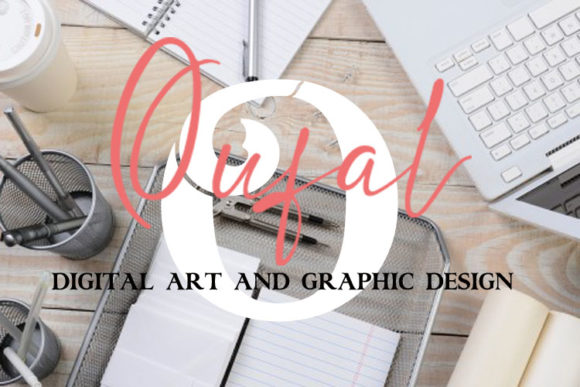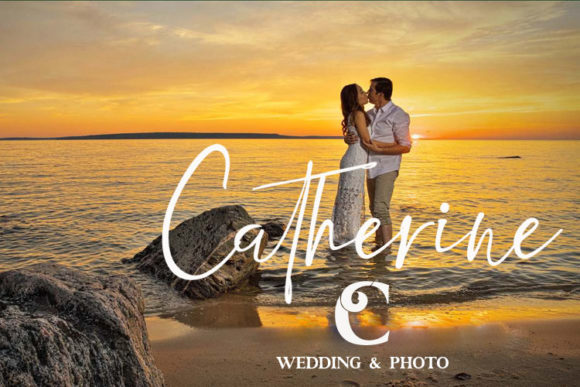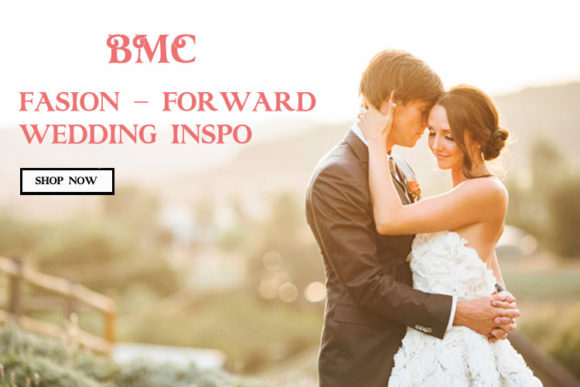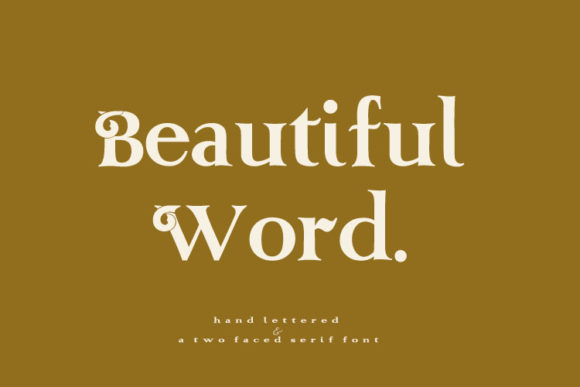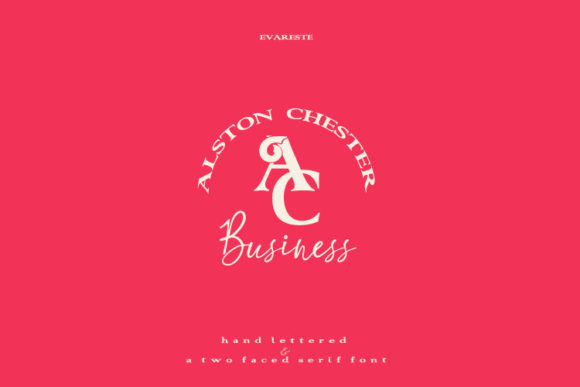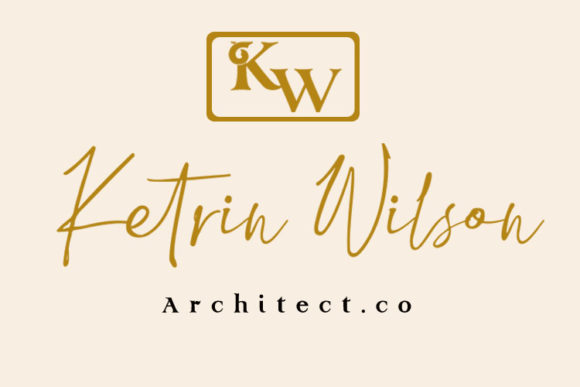
Evareste Duo Font: Elevate Your Designs with Modern Elegance
In the realm of typography, few font combinations have captured the essence of modern elegance as perfectly as the Evareste Duo. This dynamic duo, consisting of a script and a serif font, is engineered to bring a touch of sophistication and flair to any design project. Whether you’re a seasoned designer or a crafting enthusiast, the Evareste Duo font is your gateway to creating visually stunning and memorable designs.
The Perfect Harmony of Script and Serif
At the heart of the Evareste Duo’s appeal is the seamless harmony between its script and serif components. The script font boasts authentic glyphs that exude elegance and fluidity, while the serif font offers a structured and classic look. When paired, these two fonts create a visual synergy that is both captivating and versatile. The authentic glyphs of the script perfectly complement the serif’s style, making the Evareste Duo a match made in heaven for designers seeking to elevate their work.
Unleash Your Creativity with Versatility
One of the most compelling advantages of the Evareste Duo font is its incredible versatility. This font combination can be effectively used across a wide array of applications, from high-end editorial designs and advertising headlines to DIY projects and personal crafts. The modern and fancy feel it imparts makes it an ideal choice for projects that demand a bit of sophistication without compromising on creativity.
Applications of Evareste Duo Font
- Headlines and Titles: The Evareste Duo font, with its distinctive blend of script and serif elements, is perfect for creating eye-catching headlines and titles that stand out.
- Branding and Logos: For businesses looking to establish a modern yet elegant brand identity, the Evareste Duo offers a unique solution that can be tailored to fit various industry aesthetics.
- DIY Projects: Crafters and DIY enthusiasts will find the Evareste Duo font to be a valuable asset for adding a professional touch to handmade goods, such as labels, cards, and posters.
- Editorial and Advertising: In editorial designs, such as magazines and newspapers, and in advertising materials, the Evareste Duo brings a level of sophistication that can enhance reader engagement.
Why Choose Evareste Duo Font?
Choosing the Evareste Duo font for your design projects comes with several benefits:
- Unique Aesthetic: The combination of script and serif fonts offers a unique aesthetic that can set your designs apart from the crowd.
- Flexibility: The duo’s versatility means you can use it for a wide range of projects, from digital designs to print materials.
- Modern Appeal: The modern and fancy feel of the Evareste Duo font ensures your designs have a contemporary edge.
Tips for Using Evareste Duo Font Effectively
To maximize the impact of the Evareste Duo font in your designs, consider the following tips:
- Balance is Key: Balance the use of the script and serif fonts to maintain visual harmony. Use the script for highlights and the serif for body text, or vice versa, depending on your design needs.
- Play with Sizes: Experimenting with different font sizes can help emphasize certain elements of your design and create a more dynamic look.
- Consider Color: The choice of color can significantly affect the overall feel of your design. Choose colors that complement the modern and elegant vibe of the Evareste Duo.
| Font Name | Evareste Duo Font |
| Author | FontCloud |
The Evareste Duo font represents a powerful tool for designers and crafters looking to infuse their projects with a modern and fancy feel. Its unique combination of script and serif fonts, coupled with its versatility, makes it an excellent choice for a wide range of applications. By incorporating the Evareste Duo into your design repertoire, you’ll be well-equipped to create stunning, memorable designs that capture the essence of modern elegance.